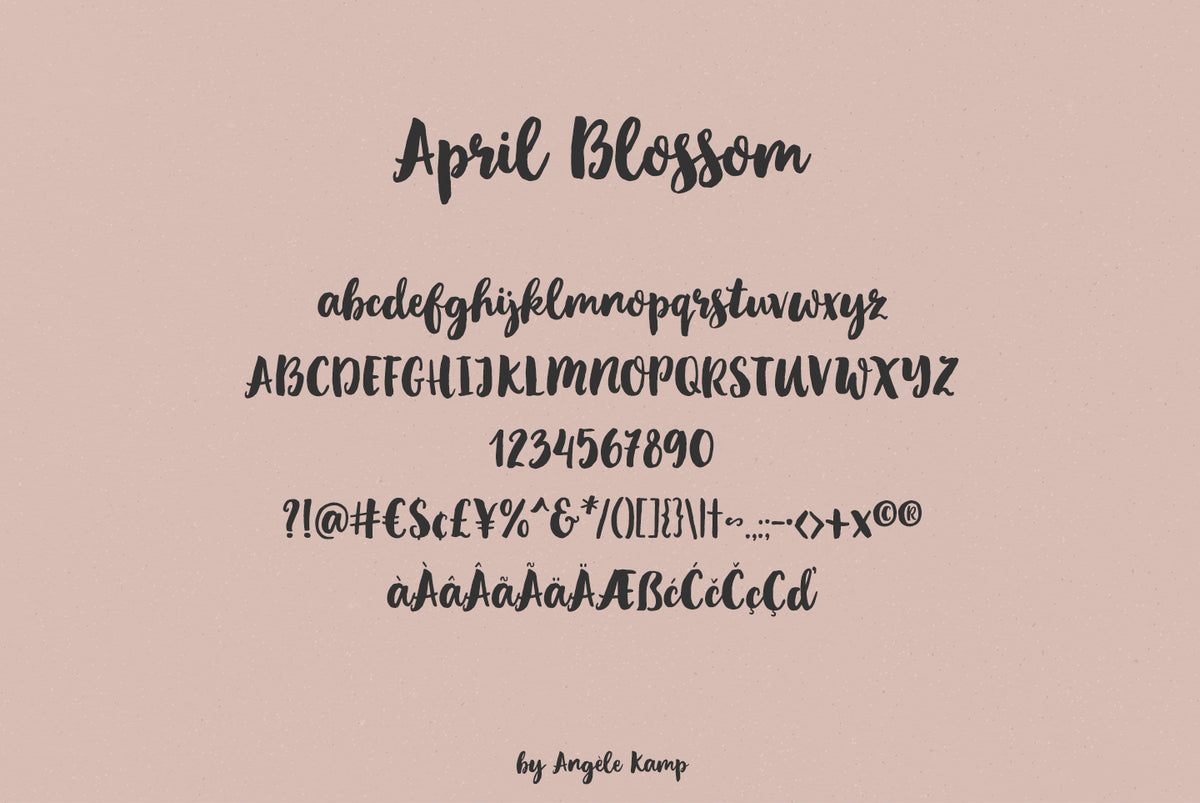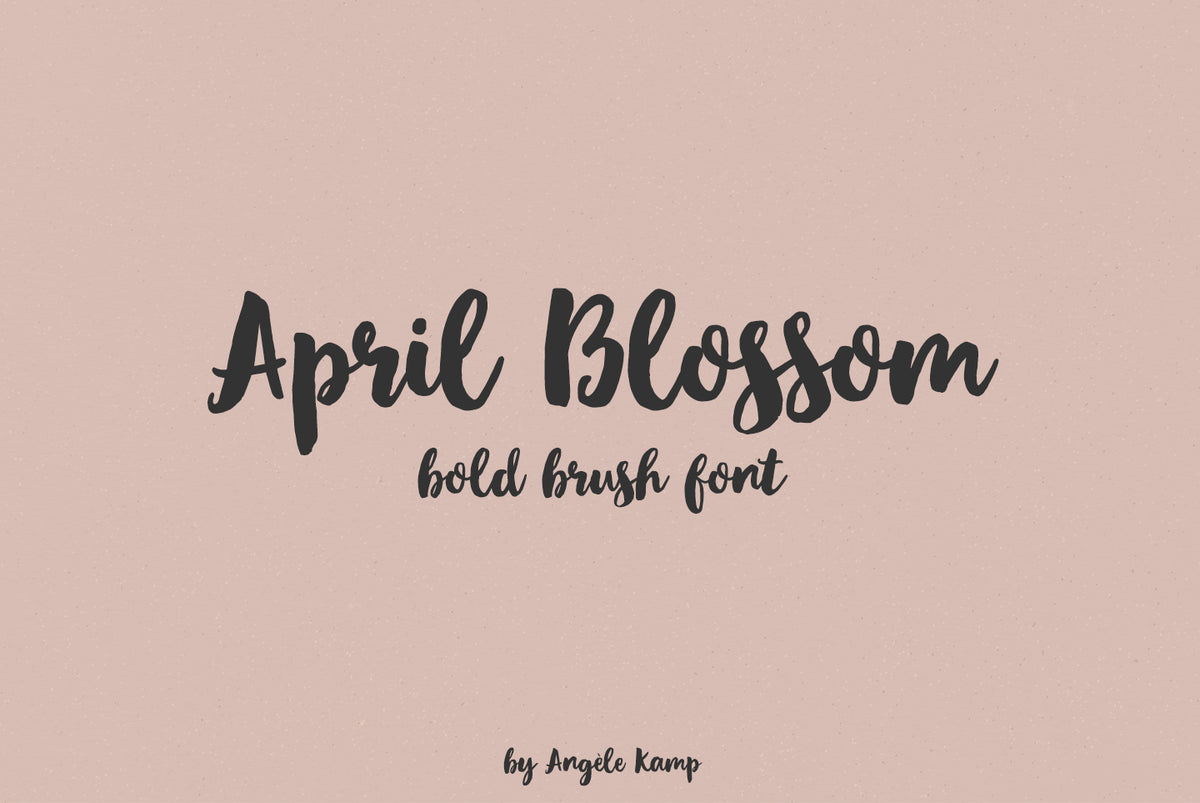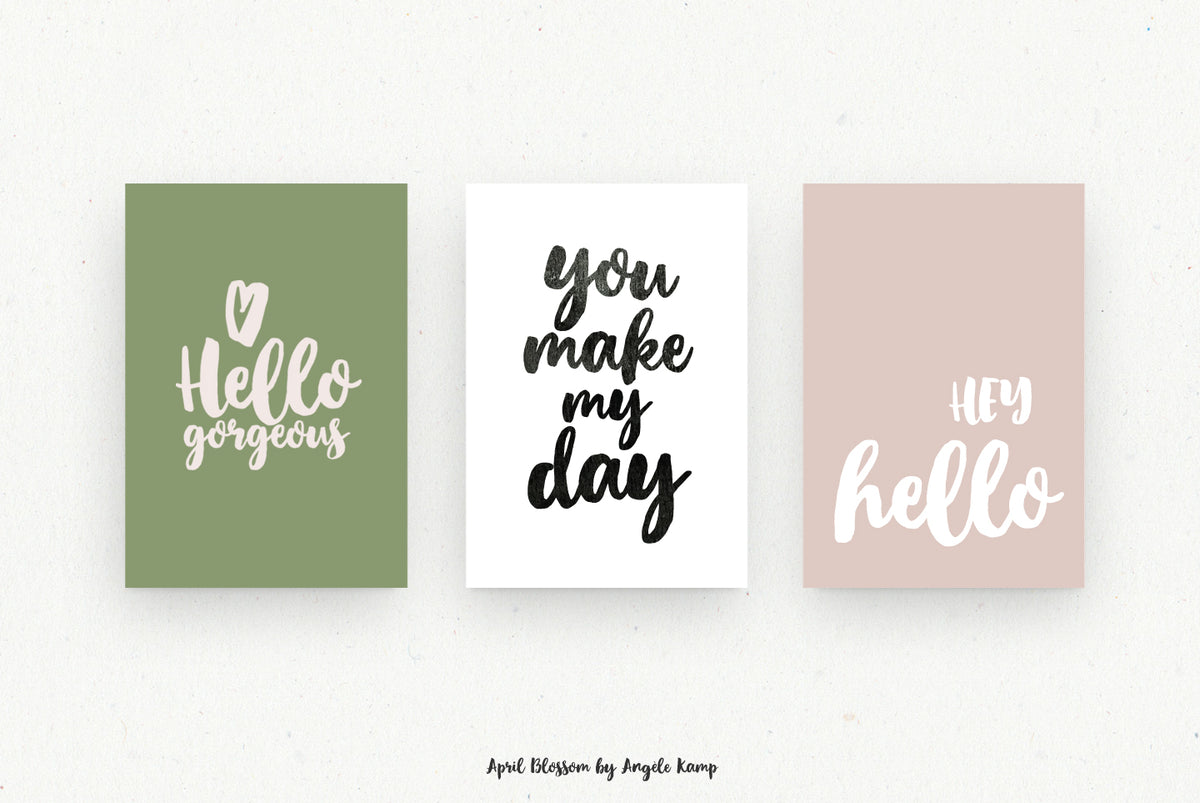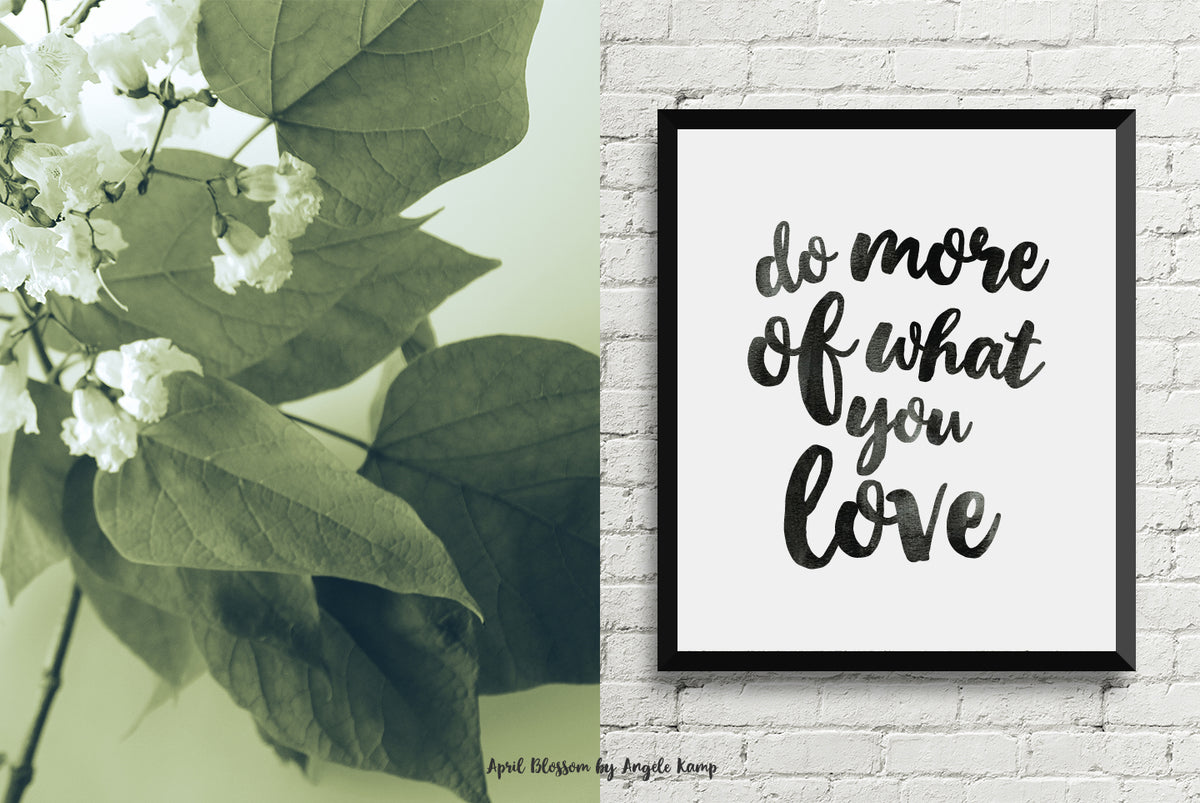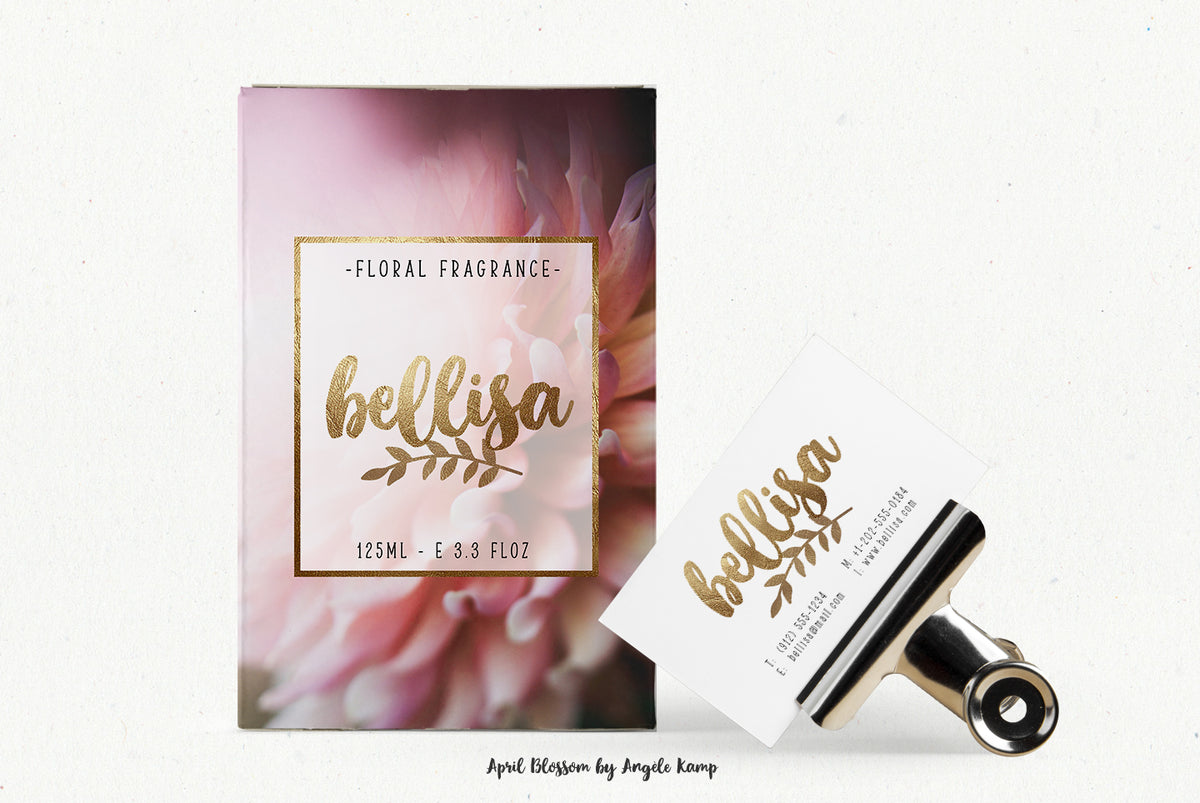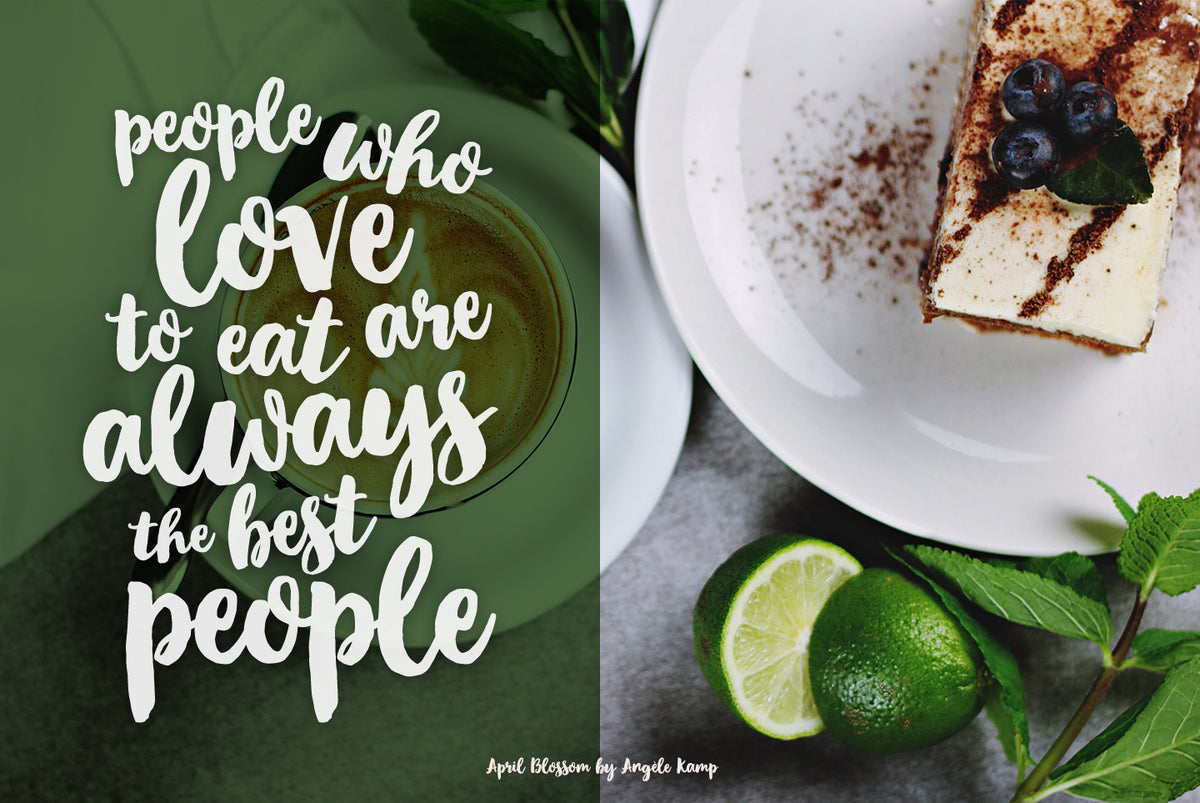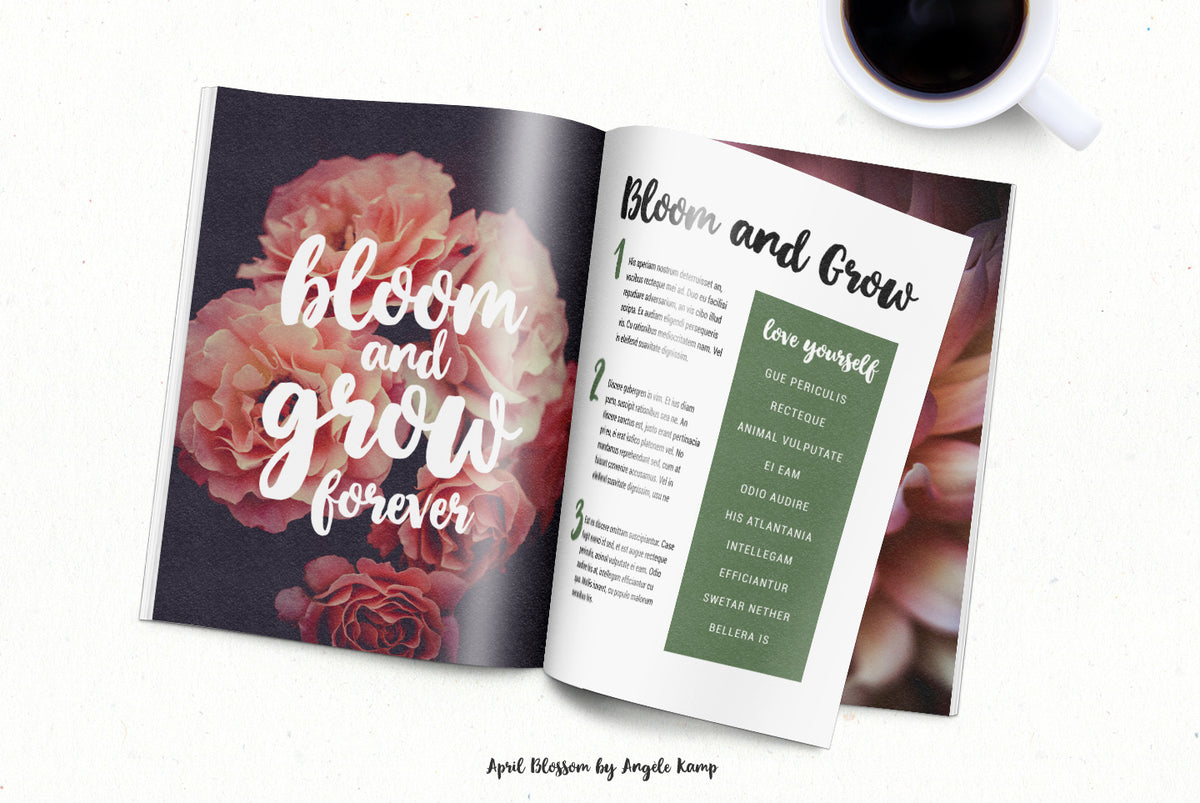
April Blossom font
April Blossom is a sweet brush font with a playful character. This fun will look gorgeous on all your branding materials, logos, cards, quotes, and any other lovely projects you are working on.
April Blossom contains standard characters, lowercase, uppercase, numbers, punctuation, ligatures, and international characters.